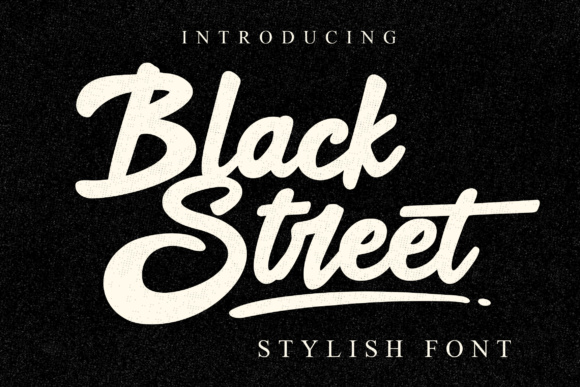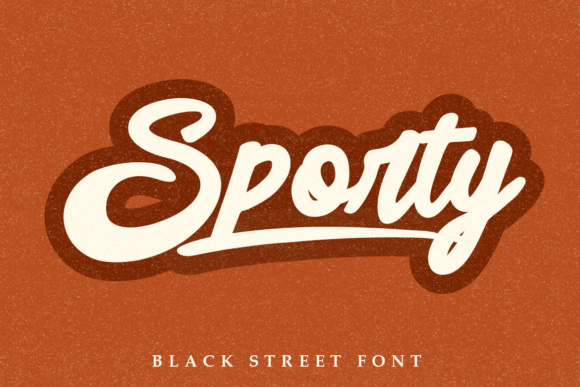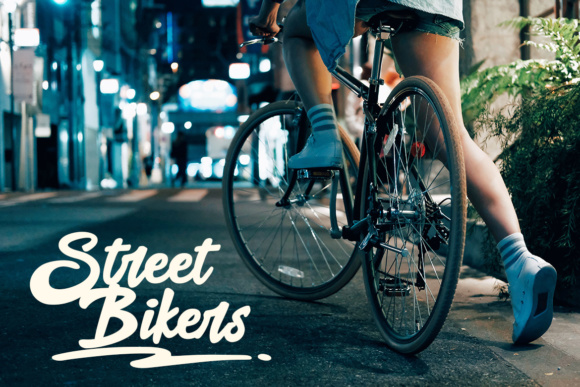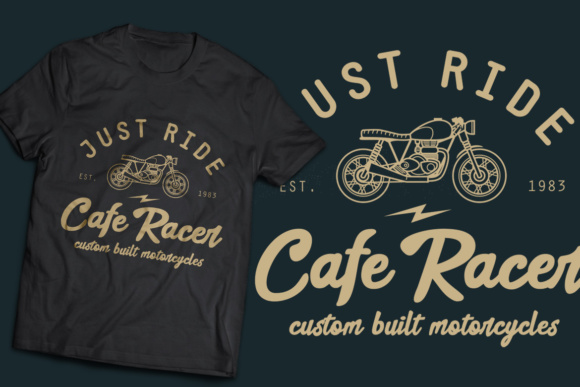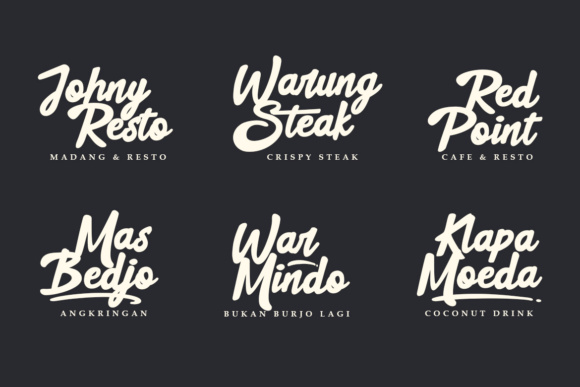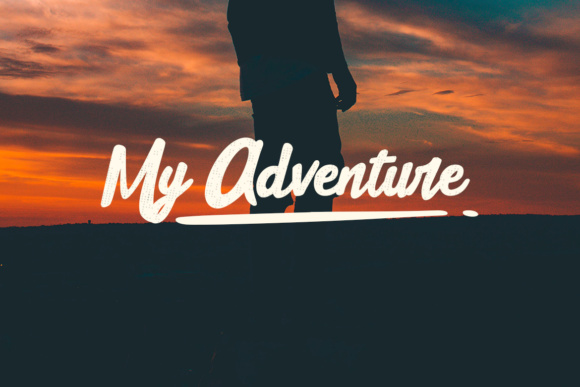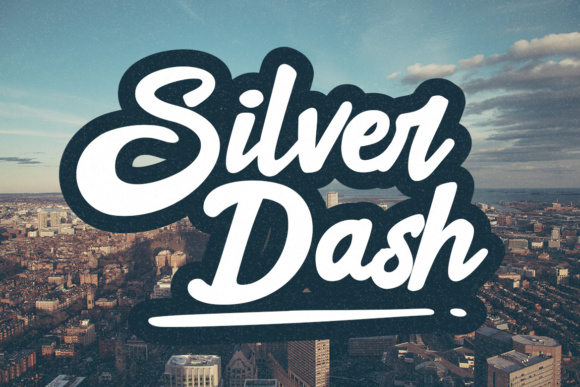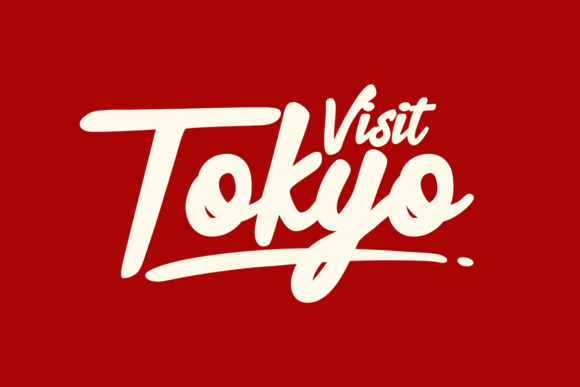
Black Street Font
About Black Street Font
Black Street is a bold script with a vintage look, in a modern jacket.
It’s the perfect font for branding, apparel design, logos, posters and much more.